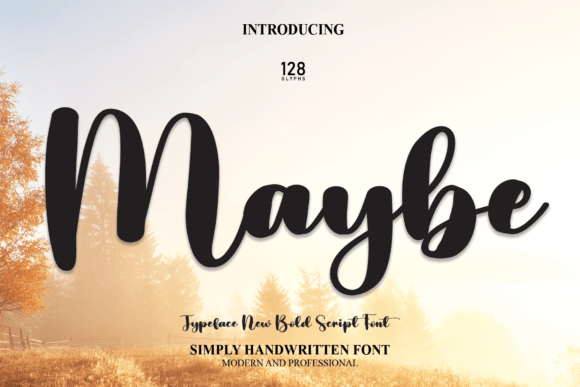
Introducing Maybe Font - The Gateway to Creative Expression
In the realm of digital art, where words dance across screens and pixels paint vivid tales, there exists a font that captures the essence of elegance and individuality - Maybe Font. This exceptional script font, meticulously crafted by the visionary Roronoa Zoro.S.P.D, transcends the boundaries of ordinary typography, inviting you to embark on a journey of artistic exploration.
Step into a world where letters flow like liquid poetry, where each stroke carries a story, and where your imagination knows no limits. Maybe Font is not just a collection of characters; it's an expression of your creativity, a reflection of your unique style, and a powerful tool to captivate audiences.
Unleash the Endless Possibilities of Maybe Font
With Maybe Font, the possibilities are as boundless as your imagination. Whether you're designing stunning brochures that demand attention, crafting heartfelt wedding invitations that celebrate love, or creating captivating social media posts that ignite engagement, this font is your perfect companion.
Its versatility extends beyond digital realms, reaching into the tangible world of product packaging, product designs, labels, and photography. Let Maybe Font grace your products, adding a touch of sophistication and elegance that sets them apart from the ordinary. Its unique charm will elevate your brand's identity, making a lasting impression on customers.
Experience the Essence of Handwritten Beauty
Maybe Font is a celebration of the handwritten art form, capturing the essence of human touch in every stroke. Its organic lines and graceful curves evoke a sense of warmth and authenticity, adding a personal touch to your creative projects.
Whether you're designing stationery that exudes elegance, creating watermarks that add a touch of artistry, or crafting logos that speak volumes about your brand's personality, Maybe Font is your trusted ally. Its versatility knows no bounds, adapting seamlessly to a wide range of projects, each time delivering exceptional results.
Discover the Magic of Maybe Font Today
Maybe Font is more than just a font; it's an experience that will transform your creative endeavors. Its beauty and versatility will captivate your audience, leaving a lasting impression that lingers in their minds.
Join the ranks of discerning designers and artists who have embraced Maybe Font as their go-to choice for creating stunning visuals. Let your creativity soar, let your imagination run wild, and let Maybe Font be your guide on this extraordinary journey of self-expression.